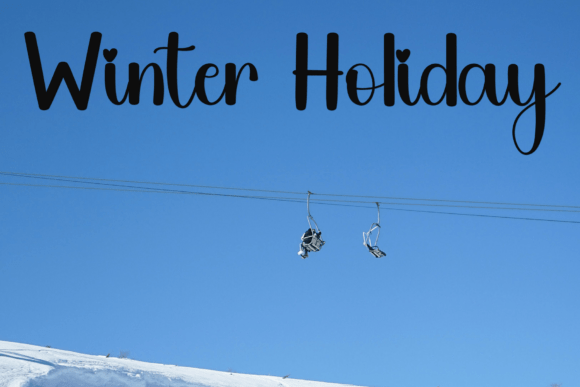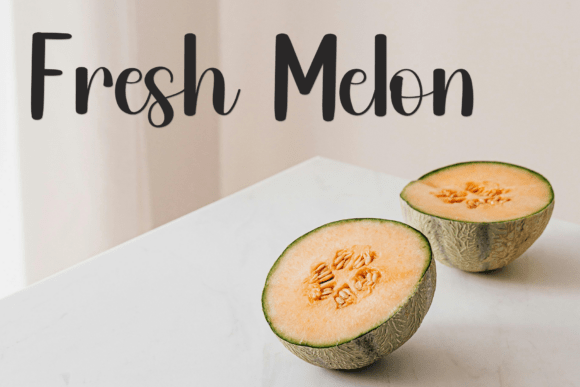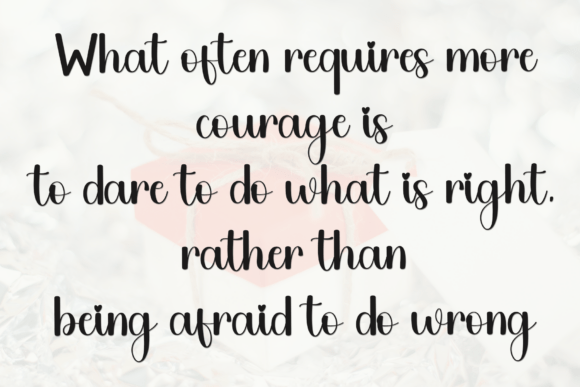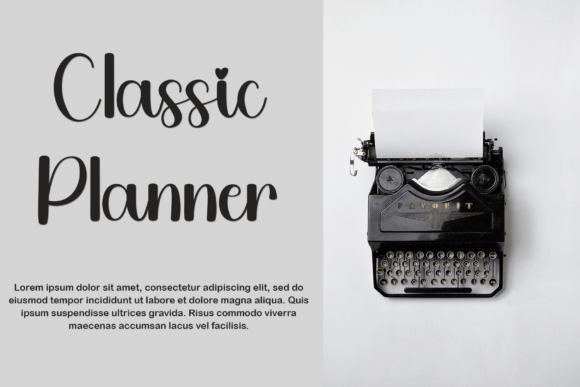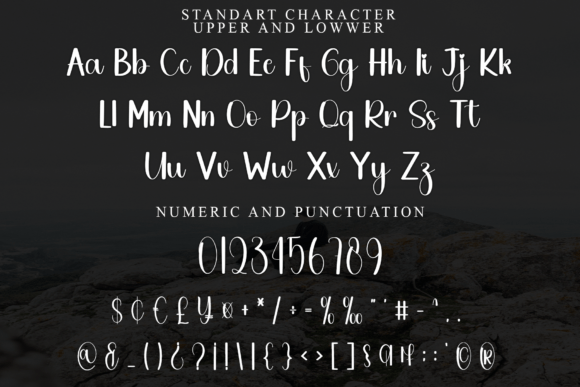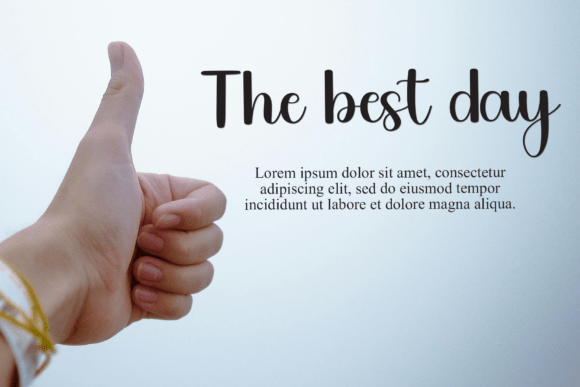
The Magic of Calligraphy Font: Elevating Your Designs with Elegance
I’ll never forget the time I was working on a wedding invitation project, and my client asked for a font that would make their special day feel like a fairytale. I scoured the internet, tried countless fonts, but nothing seemed quite right. That was until I stumbled upon Calligraphy Font. With its romantic and clean handwritten style, it brought a touch of sophistication to the design that I knew would wow my clients. In this article, I’ll share with you why Calligraphy Font has become a staple in my design toolkit and how you can make the most of it in your projects.
An Honest Review of Calligraphy Font
- ✨ Romantic and Clean Style: Calligraphy Font boasts a beautiful, handwritten aesthetic that’s both elegant and approachable.
- ✅ Versatile: It’s perfect for a wide range of projects, from invitations and stationery to branding and love-themed designs.
- 💕 Playful Details: The subtle curves and playful hearts in its details add a charming touch to any design.
While Calligraphy Font is incredibly versatile, there are a few things to keep in mind:
- ⚠️ Legibility at Small Sizes: Like many script fonts, Calligraphy Font can be a bit tricky to read at very small sizes. It’s best used at larger sizes where its details can shine.
- 🤔 Overuse of Swashes: While the swashes and stylistic alternates are beautiful, using too many can make your text look cluttered. Use them sparingly for the best effect.
The Story Behind Calligraphy Font
While the origins of Calligraphy Font might be shrouded in mystery, it’s clear that its designer was inspired by the elegance of traditional calligraphy and the playfulness of modern handwriting. The result is a font that feels both timeless and contemporary.
A: While Calligraphy Font is stunning, it’s best used for headings and short paragraphs due to its script nature and the potential for decreased legibility at smaller sizes.